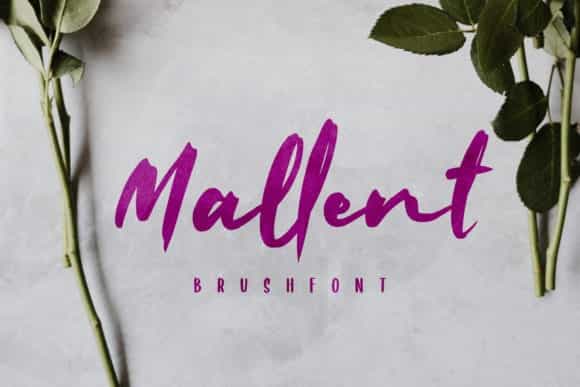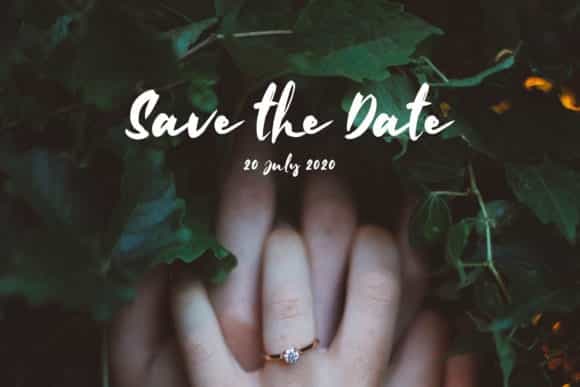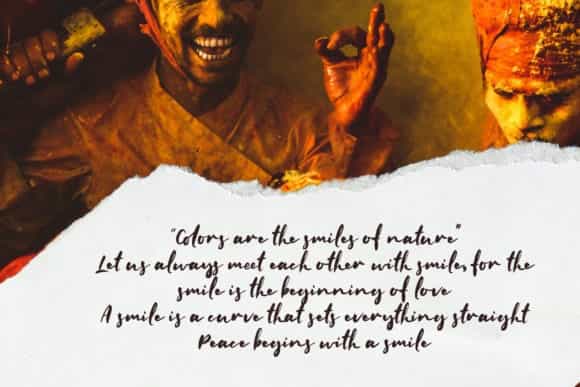
Discover Mallent Brush Font, part of the Commercial Brush collection—a versatile and unique font perfect for adding a personal touch to your projects. Download it for free and enjoy crafting designs with style, from invitations to social media posts. This font is available exclusively for personal use, giving you the freedom to create without limits. Unlock your creativity with Mallent Brush Font today!
Mallent Font is a very robust and bold script that’s created with the help of a dry brush. It will easily be the highlight of any design project. This typeface also has a lot of specific features like additional glyphs and ligatures.